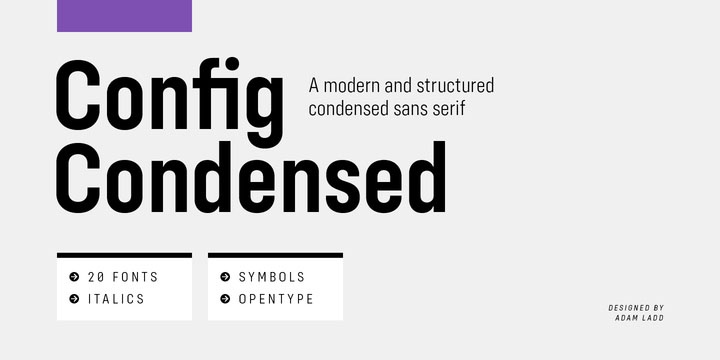
Config Condensed Font
Config Condensed Font is perfect for technical documentation, software interfaces, coding environments, system administration materials, IT branding, developer tools, configuration manuals, technical specifications, programming tutorials, and digital system communications.
Config Condensed Font is exciting because it embodies the precision and efficiency of modern software development with its space-optimized letterforms that maximize information density while maintaining exceptional readability in technical environments. Its systematic design philosophy reflects the structured nature of code and configuration files, making it perfect for technology brands that need to communicate complex technical information clearly and efficiently.
The Config Condensed Font family includes Ultra Condensed, Semi Condensed weights, Regular, Medium, Bold variations, corresponding Italic styles, Mono versions, Code alternates, and Technical elements, providing developers and designers with comprehensive tools for creating efficient technical typography and professional software documentation.
Config Condensed Font Free Download delivers optimal technical typography for space-constrained applications, featuring scientifically optimized letterforms that excel in coding environments and technical documentation. This specialized typeface combines programming efficiency with visual clarity, creating the perfect solution for software companies, development teams, and technical organizations requiring maximum information density without sacrificing readability.
Whether you're developing software interfaces, creating technical documentation, designing developer tools, or producing system configuration materials, Config Condensed Font provides the efficient foundation needed for clear technical communication. Its condensed character makes it particularly effective for coding platforms, software companies, IT service providers, and technical education organizations that work with complex information in limited screen space.
Perfect for software developers, technical writers, UX designers, and IT professionals working with code and configuration systems, this font offers the systematic qualities essential for successful technical communication. The typeface's space-efficient approach ensures optimal performance across terminal interfaces, documentation systems, and technical training materials.
Config Condensed Font includes comprehensive programming character sets, technical typography features, and code-optimized spacing that guarantees superior performance in software development applications. Its systematic approach to condensed typography makes it indispensable for teams requiring efficient technical communication. Optimize your technical typography with Config Condensed Font Free Download and create documentation that truly configures for success.